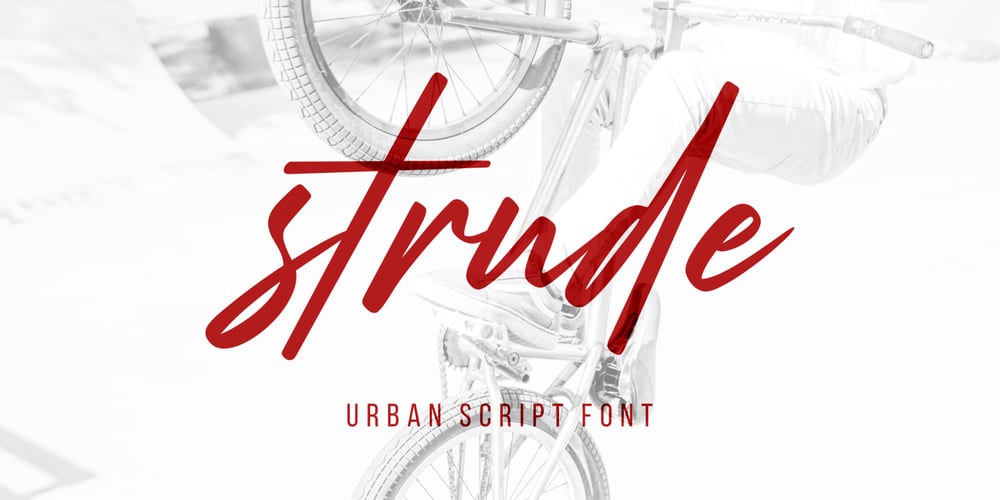
Strude
Strude font
Strude Font Family was designed by Annas Alam Yahya and published by Letteralle. Strude contains 1 styles and family package options. Strude is a modern urban style font script. Strude comes with stylistic set (uppercase & lowercase), ligatures, and also supports multi language. With letters that have a distinctive style, Strude is perfect for logo design, merch, display, apparel, and many more. Enjoy the font, feel free to send me an email at letteralle@gmail.com.